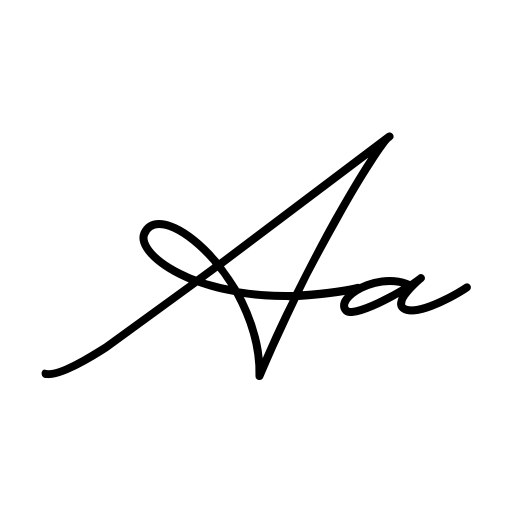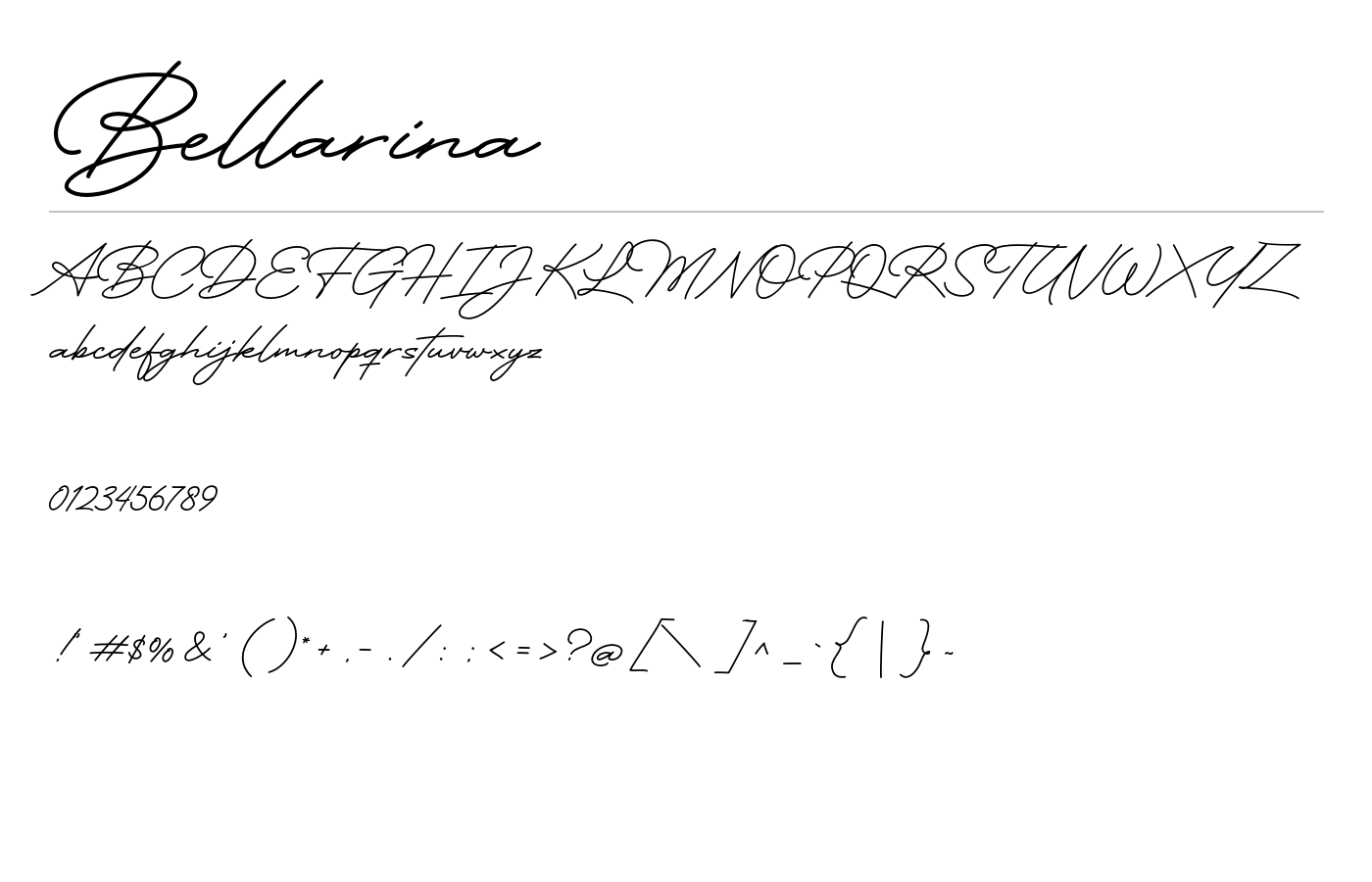
Bellarina is an elegant script font with delicate, flowing strokes that evoke a sense of grace and sophistication. Its thin, slightly slanted letterforms and smooth connections create a natural, handwritten feel perfect for invitations, branding, and stylish headlines. This font works beautifully in designs aiming to convey femininity, charm, and a modern yet classic touch.
Bellarina Font
About Bellarina Font
| Font family | Bellarina Font |
| Designer | Hendra Pratama |